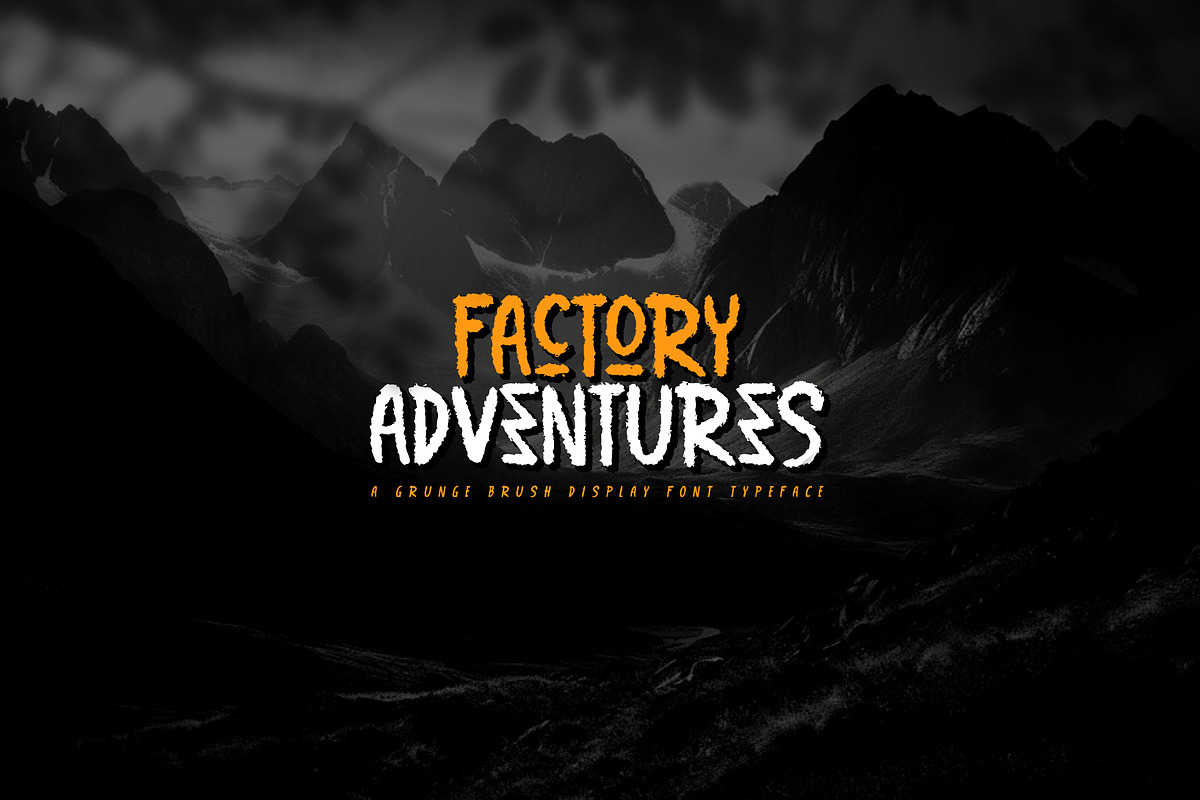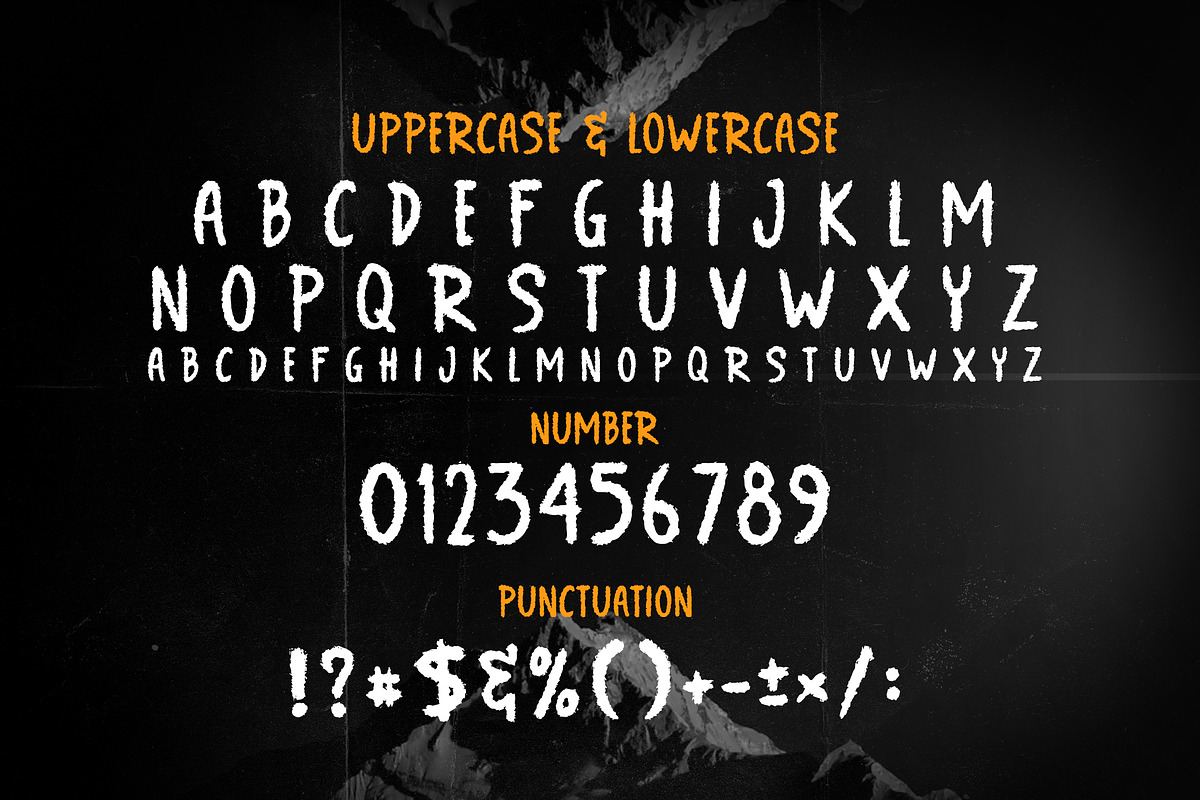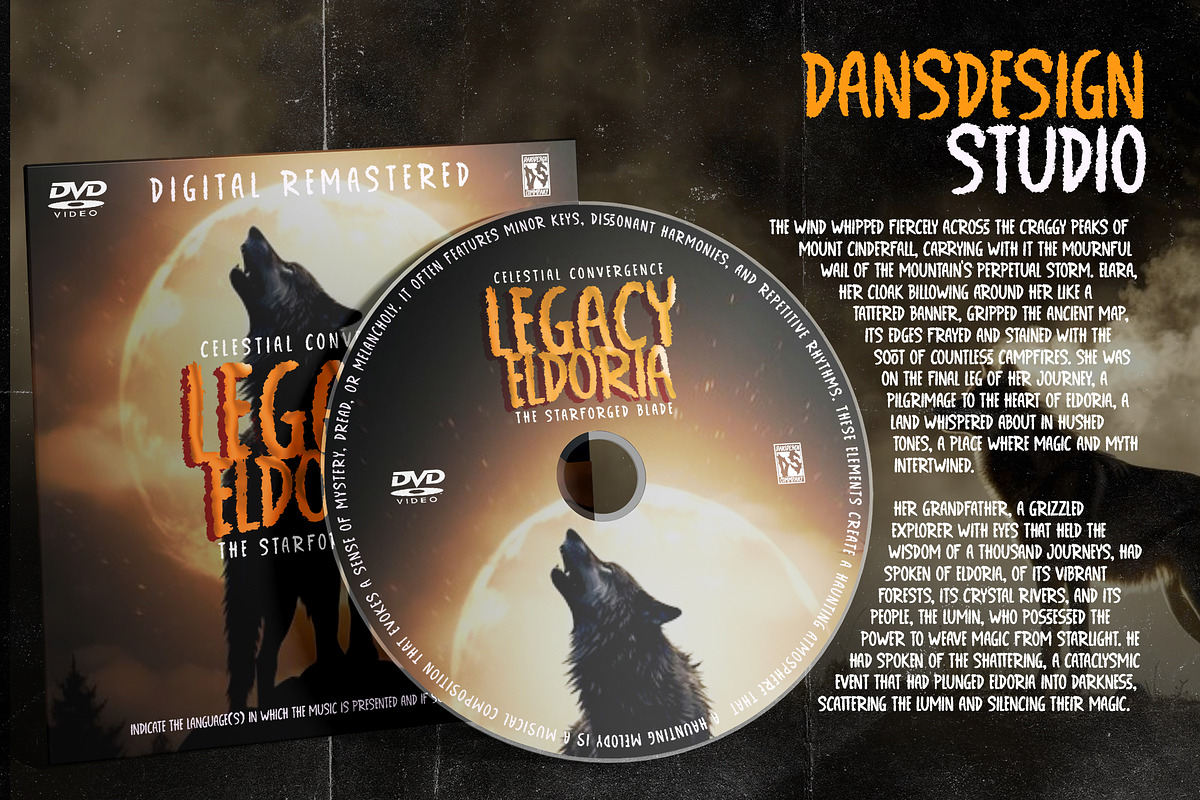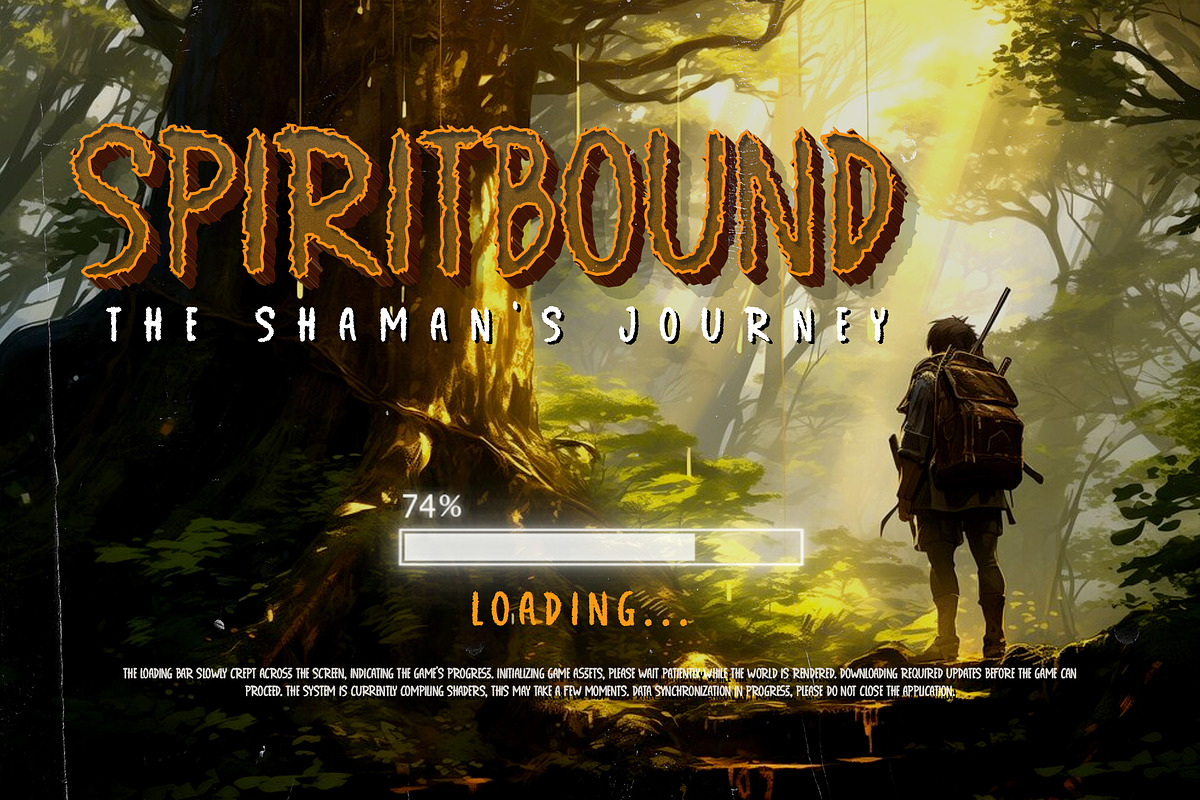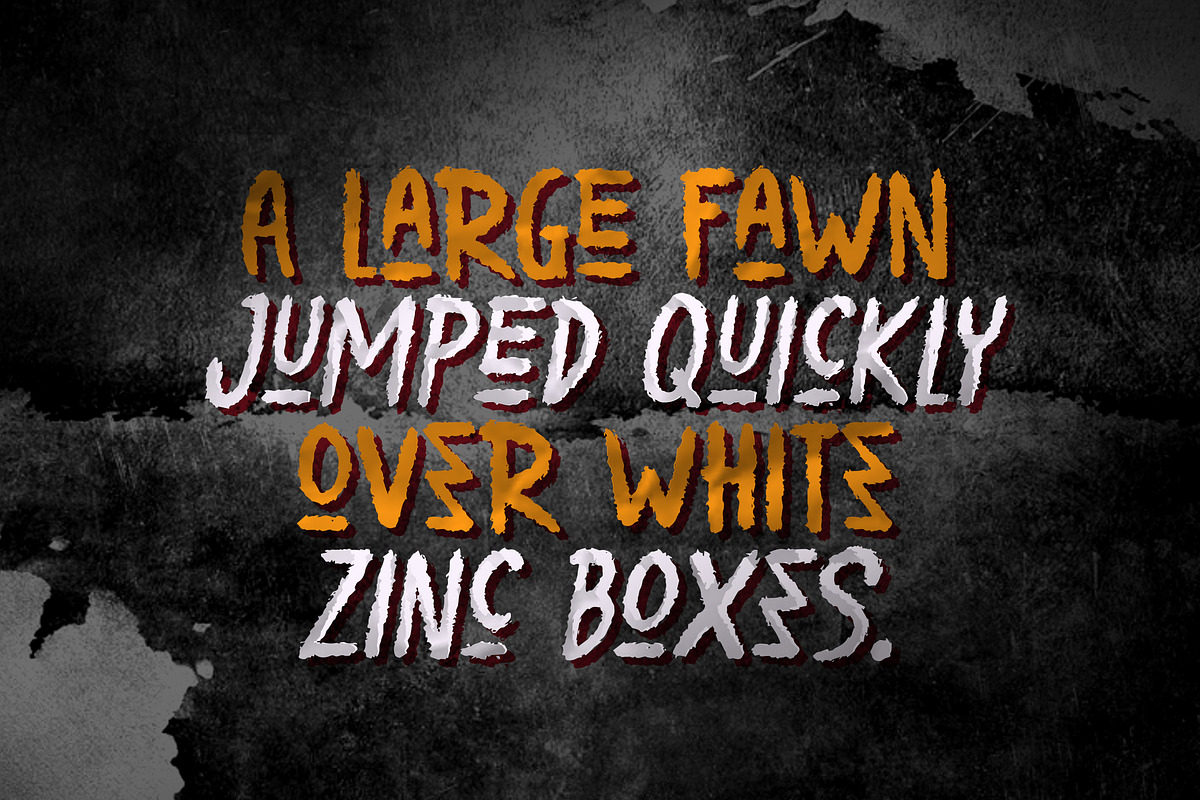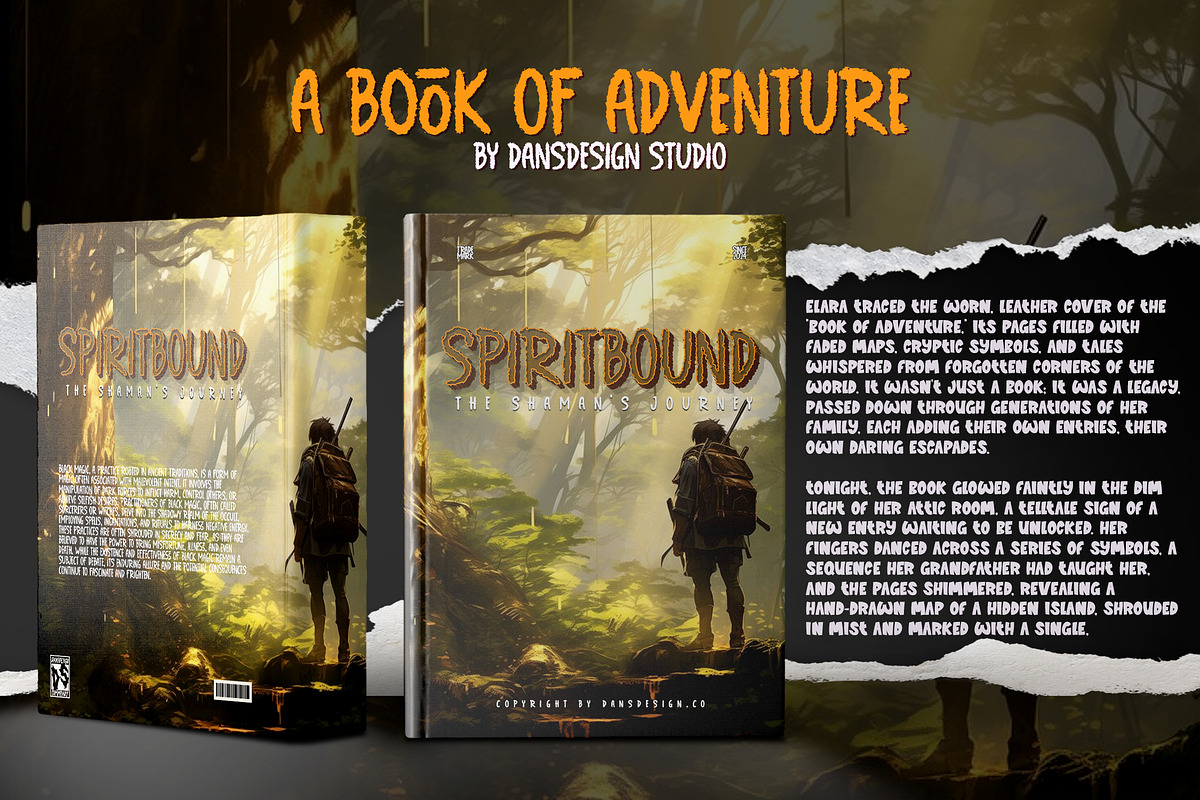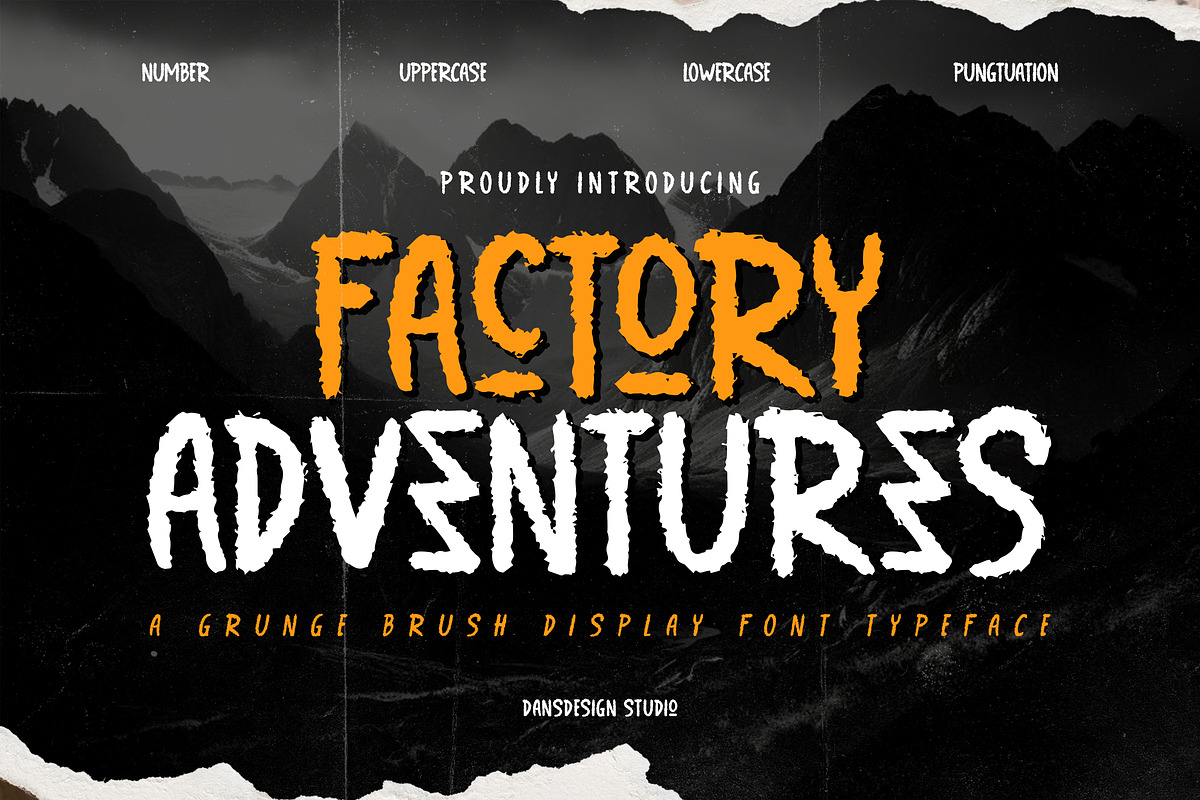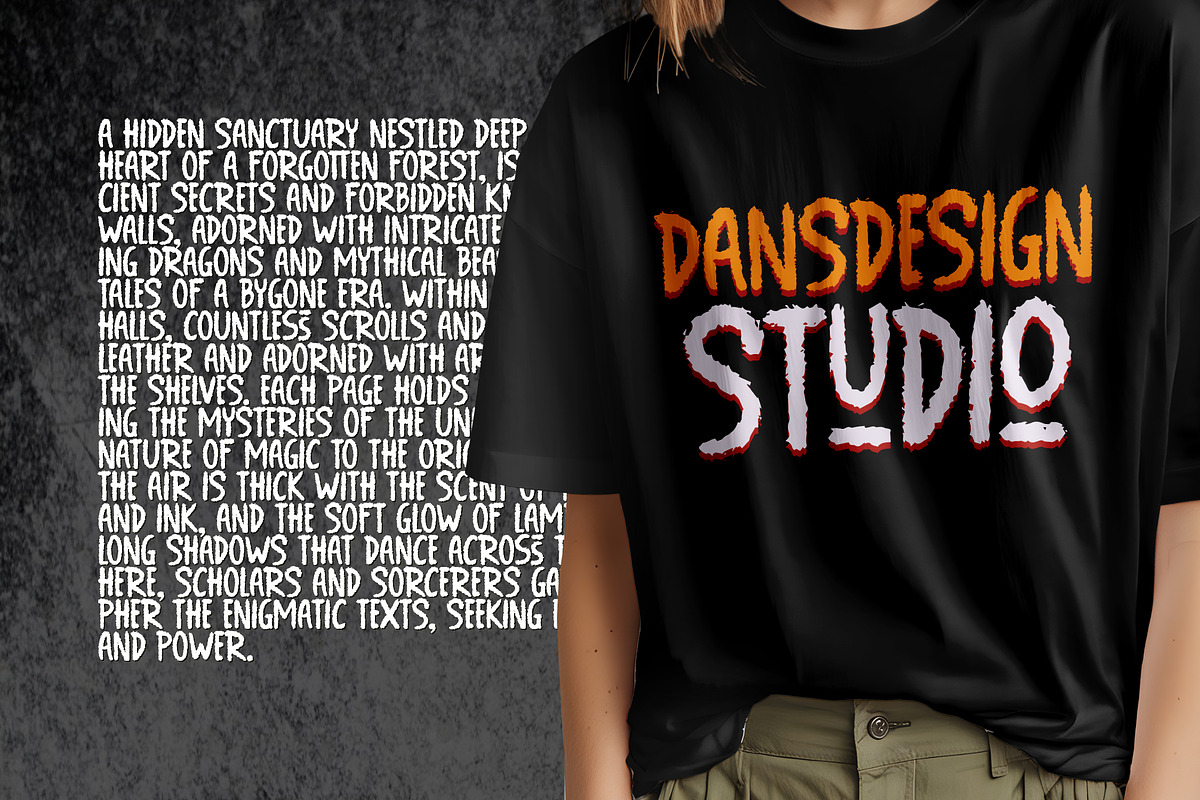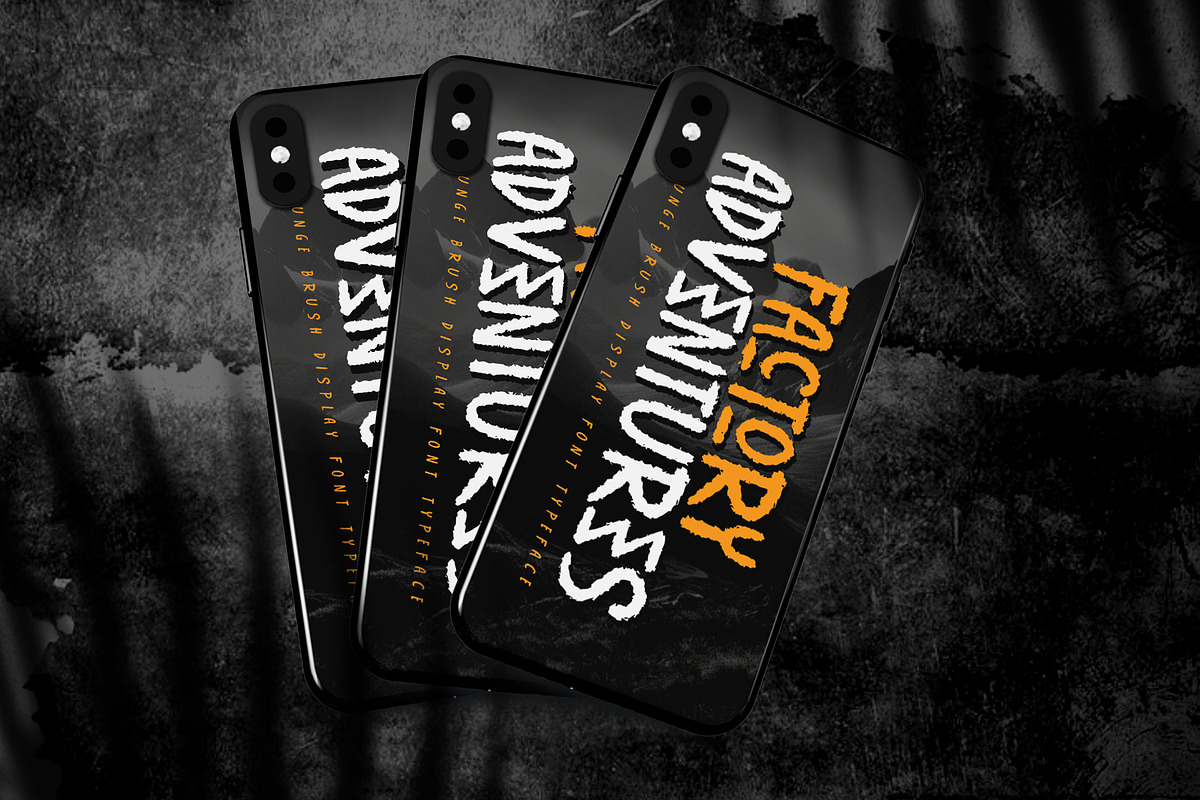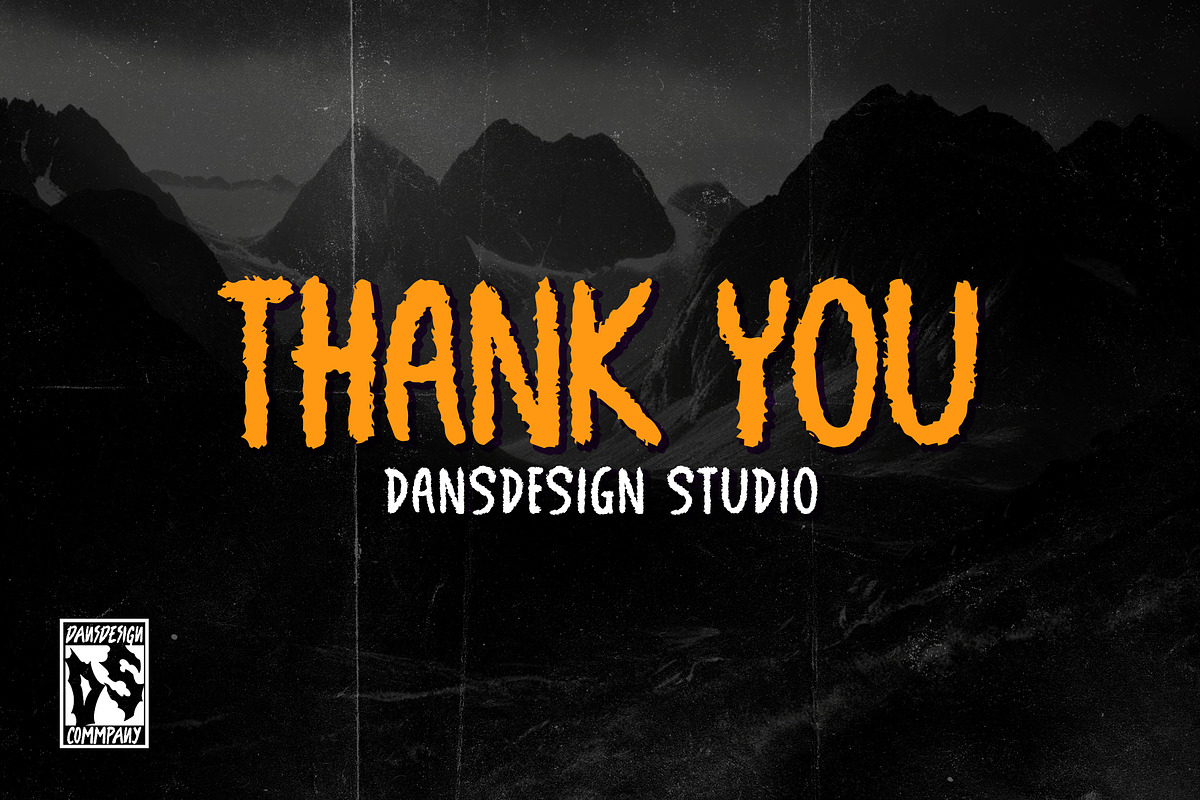
Factory Adventures Grunge Brush
Factory Adventures – A Grunge Brush Typeface for Wild Ideas and Untamed Creativity
Factory Adventures is a bold and untamed display font that brings raw energy to any creative project. Hand-drawn with jagged strokes and an expressive brush style, it captures the wild spirit of adventure, mystery, and rebellion. From chaotic titles to daring headlines, this font grabs attention and doesn’t let go.
With uneven edges, rough textures, and a fierce attitude, Factory Adventures adds a gritty personality to your work—ideal for visuals that demand impact, mood, and edge.
🎯 Perfect for:
Horror-themed titles and moody poster designs Games, survival stories, and urban adventures Halloween invitations and dark party flyers YouTube thumbnails, intro screens, and cinematic visuals Escape room branding, thrillers, and mystery content High-impact editorial graphics and bold digital displays
🔥 Key Features:
Factory Adventures isn’t here to play nice—it’s built to stand out. Whether you’re crafting something spooky, thrilling, or daring, this font injects raw emotion and creative power into every word—with ligatures that enhance its wild, handcrafted character.